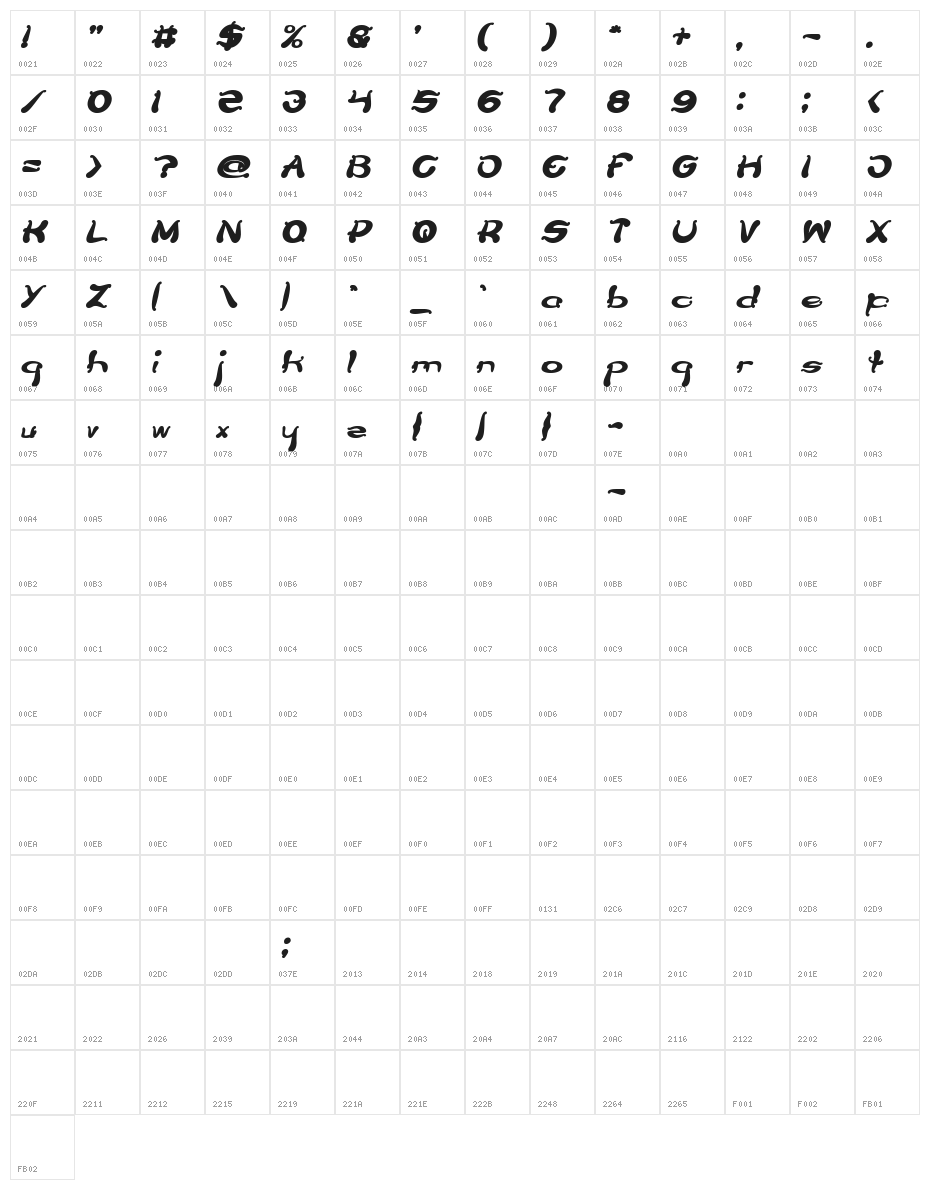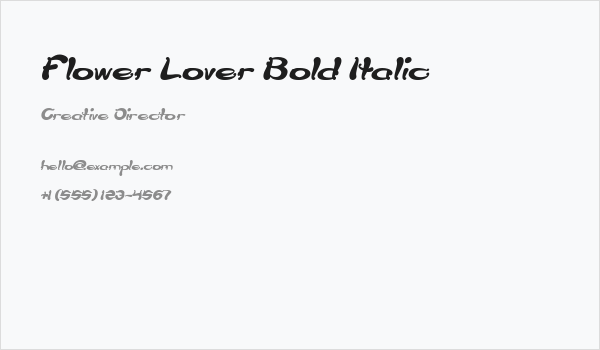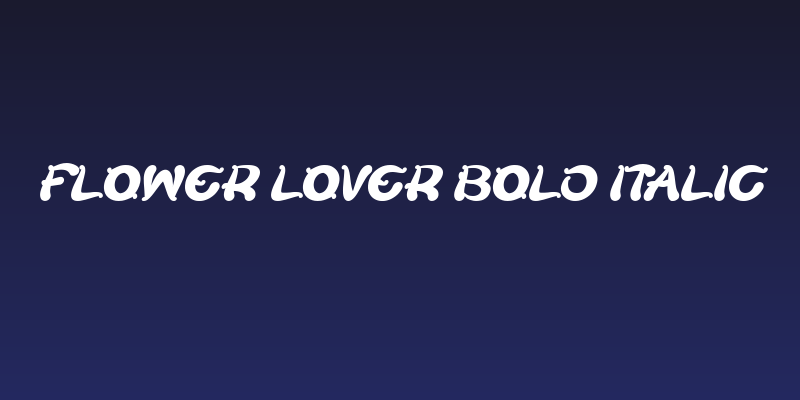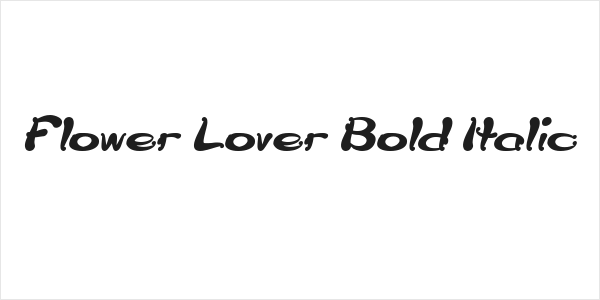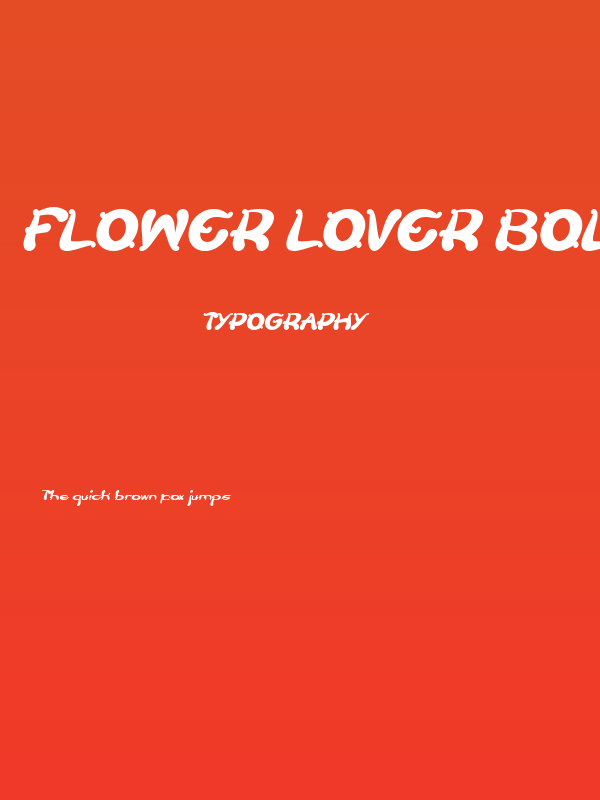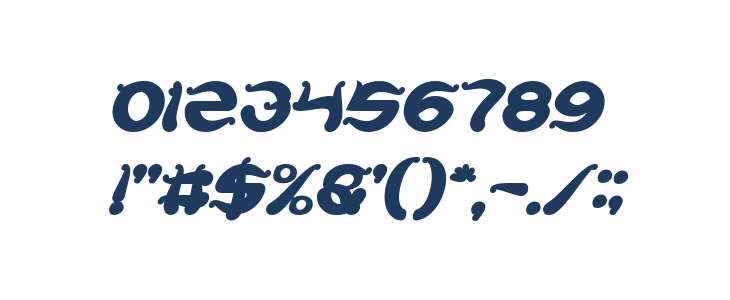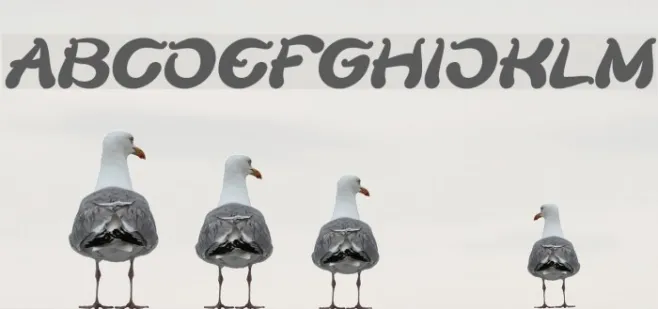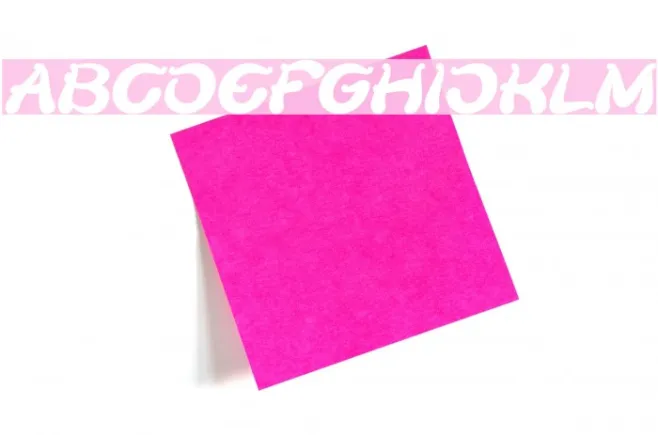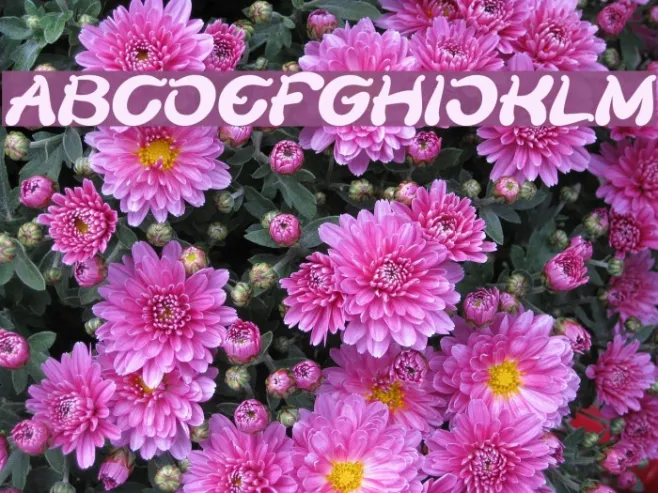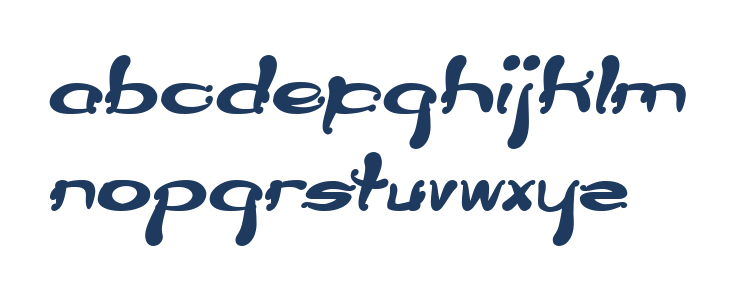
Flower Lover Bold Italic Font
Flower Lover Bold Italic Description
This font features a bold and italicized style with a playful and decorative flair. The characters are rounded and have a flowing, organic appearance, reminiscent of petals or leaves. The uppercase and lowercase letters maintain a consistent style, with exaggerated curves and loops that add to the whimsical nature of the design. Numbers and special characters are equally stylized, ensuring a cohesive look across all glyphs. The font's unique design makes it stand out, offering a sense of creativity and fun.
| Use Case | Logos, Posters, Creative projects |
| Proposed Projects | Ideal for greeting cards, children's books, playful branding, and creative posters. |